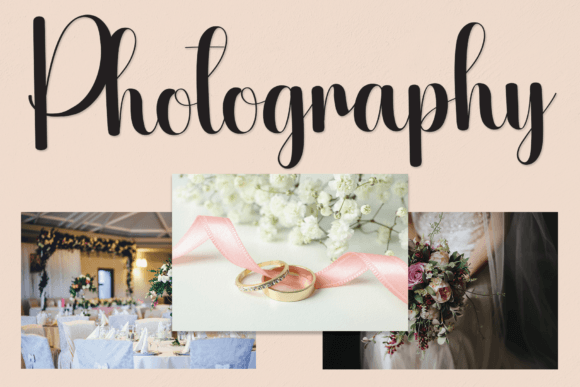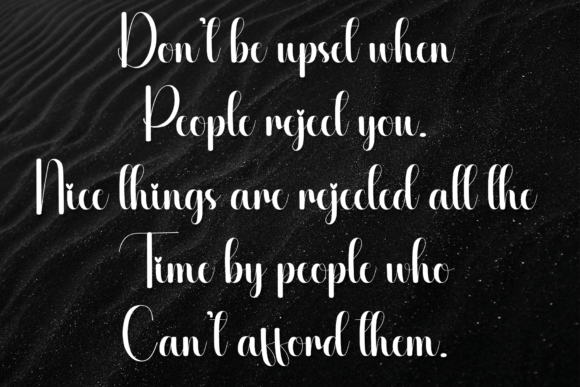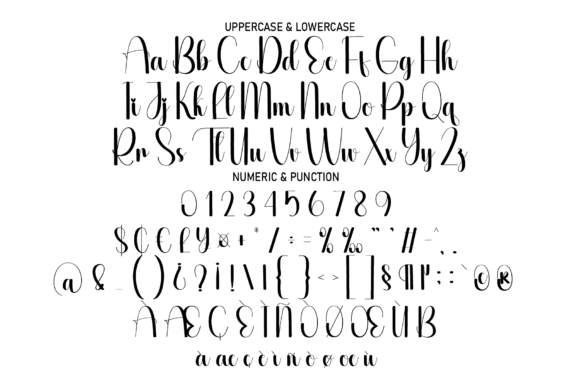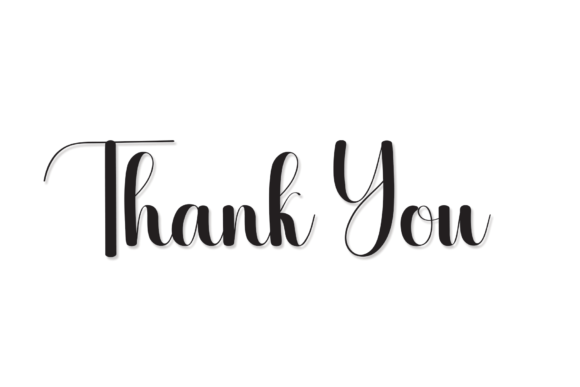
Introducing Backdoor Font: The Sweet and Delicate Handwritten Font for Romantic Designs
Are you a designer or crafter looking for a font that can add a touch of romance and personality to your designs? Look no further than Backdoor Font! This beautiful, handwritten font is perfect for creating wedding invitations, cards, and other designs that require a delicate and joyful touch.
What is Backdoor Font?
Backdoor Font is a sweet and delicate handwritten font that is designed to bring a touch of elegance and sophistication to your designs. Its dainty and joyful characters make it ideal for creating romantic and personalized designs that will leave a lasting impression.
Key Features of Backdoor Font
- Handwritten style: Backdoor Font has a beautiful, handwritten style that gives it a personal and unique touch.
- Dainty and joyful characters: The font’s characters are dainty and joyful, making it perfect for creating romantic and playful designs.
- Romantic and personalized: Backdoor Font is designed to add a touch of romance and personality to your designs, making it ideal for wedding invitations, cards, and other special occasions.
Uses of Backdoor Font
Backdoor Font is a versatile font that can be used for a variety of design projects, including:
- Wedding invitations: The font’s romantic and delicate style makes it perfect for creating beautiful wedding invitations that will set the tone for the big day.
- Cards and stationery: Backdoor Font is ideal for creating personalized cards and stationery that will add a touch of elegance and sophistication to your correspondence.
- DIY projects: The font can be used for a variety of DIY projects, such as scrapbooking, journaling, and crafting.
- Digital designs: Backdoor Font can be used for digital designs, such as social media graphics, blog posts, and website headers.
Why Choose Backdoor Font?
There are many fonts available that can add a touch of romance and personality to your designs, but Backdoor Font stands out from the rest. Here are a few reasons why:
- Unique style: Backdoor Font has a unique and distinctive style that will set your designs apart from others.
- High-quality design: The font is designed with high-quality characters that are clear and easy to read.
Tips for Using Backdoor Font
Here are a few tips for using Backdoor Font in your designs:
- Use it for headings and titles: Backdoor Font is perfect for headings and titles, where its delicate and joyful characters can really shine.
- Pair it with other fonts: The font can be paired with other fonts to create a unique and interesting design.
- Experiment with different colors: Backdoor Font looks great in a variety of colors, so don’t be afraid to experiment and find the perfect color for your design.
Backdoor Font is a beautiful, handwritten font that is perfect for designers and crafters looking to add a touch of romance and personality to their designs. Its dainty and joyful characters make it ideal for creating wedding invitations, cards, and other special occasions. With its ease of use, high-quality design, and affordability, Backdoor Font is a great choice for anyone looking to create beautiful and unique designs.